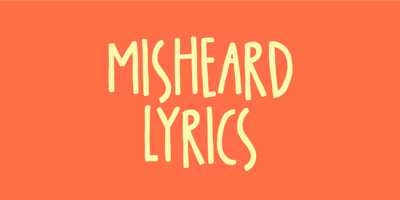
Sun Font is perfect for tropical resort branding, solar energy company logos, summer vacation promotions, beach festival marketing, sunny climate tourism campaigns, outdoor lifestyle brand identities, vitamin D supplement packaging, solar panel installation advertising, bright wellness center signage, and radiant summer event graphics. Its brilliant solar character makes it ideal for projects requiring sunshine energy and tropical warmth authenticity.
What makes Sun Font exciting is its radiant embodiment of solar energy and tropical warmth with bright letterforms and sunshine-inspired characteristics that capture the essence of summer vitality and solar power excellence. The font features luminous proportions, sun-inspired details, and energetic character construction that create authentic sunny atmosphere and tropical appeal. Its vibrant personality brings warmth and positive energy to contemporary designs while maintaining the clarity essential for outdoor communications and summer presentations. The carefully crafted solar elements ensure visual brightness while preserving the distinctive character that embodies the essence of sunshine energy and tropical excellence.
Sun Font comes in multiple radiant variations including Light, Regular, Medium, Bold, and Bright styles. Each family member maintains the distinctive solar character while offering comprehensive flexibility for sunny typography and tropical brand system development. The complete font family includes alternate characters, sun symbols, and bright decorative elements that provide extensive tools for creating immersive sunny design experiences and authentic solar brand storytelling.
Whether you're developing tropical brands, solar companies, or summer-focused projects, Sun Font Free Download provides the radiant energy needed to communicate with sunshine seekers and solar enthusiasts who appreciate bright living and tropical lifestyle excellence. The font's luminous appeal resonates with vacation travelers, solar professionals, and outdoor lifestyle enthusiasts seeking authentic sunny credibility and tropical sophistication. Its comprehensive character set includes sun symbols and bright marks, making it perfect for creating complete solar brand systems and memorable sunshine storytelling across diverse summer applications and energy-focused design projects that celebrate solar power and tropical excellence.